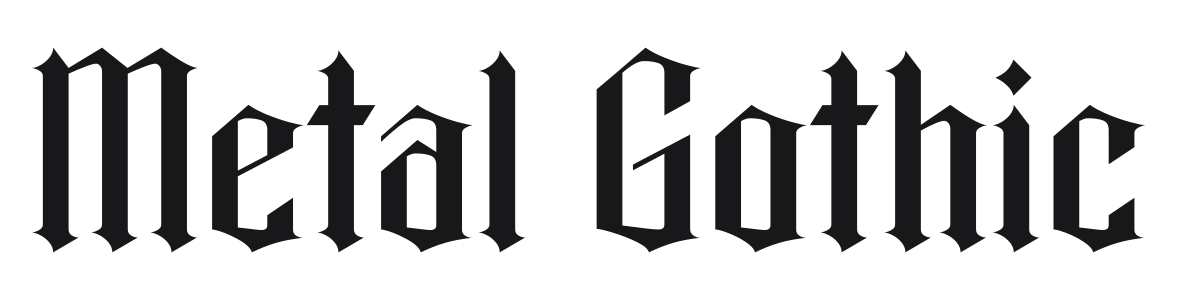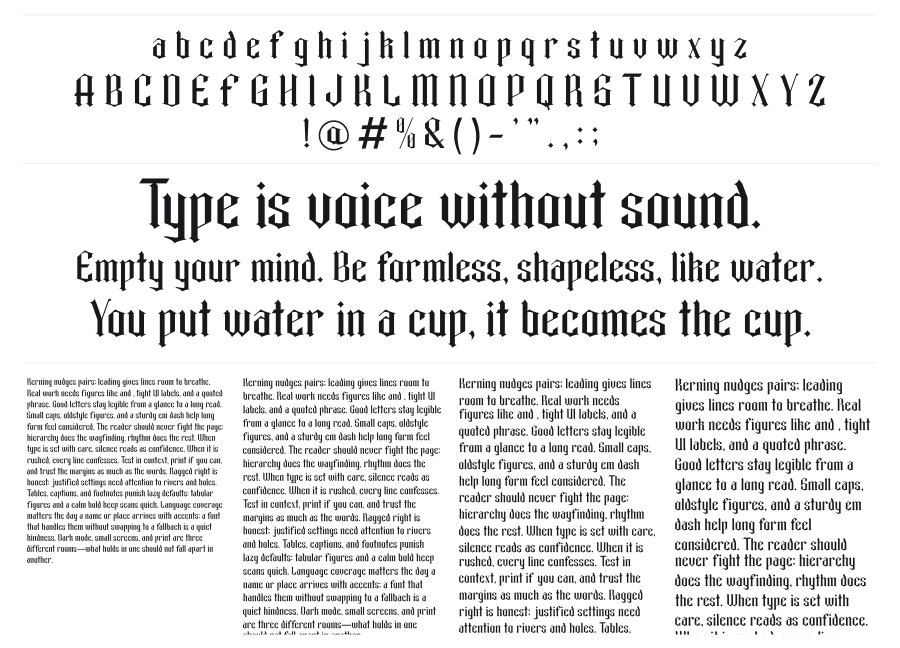
Metal Gothic
Metal Gothic is a bold blackletter display font with sharp, angular letterforms rooted in Gothic tradition and pushed toward heavy metal aesthetics. Dramatic stroke contrast, pointed diamond serifs, and aggressively condensed proportions give it a hard, confrontational energy. It thrives on album covers, band logos, poster headlines, and anywhere darkness is the brief.